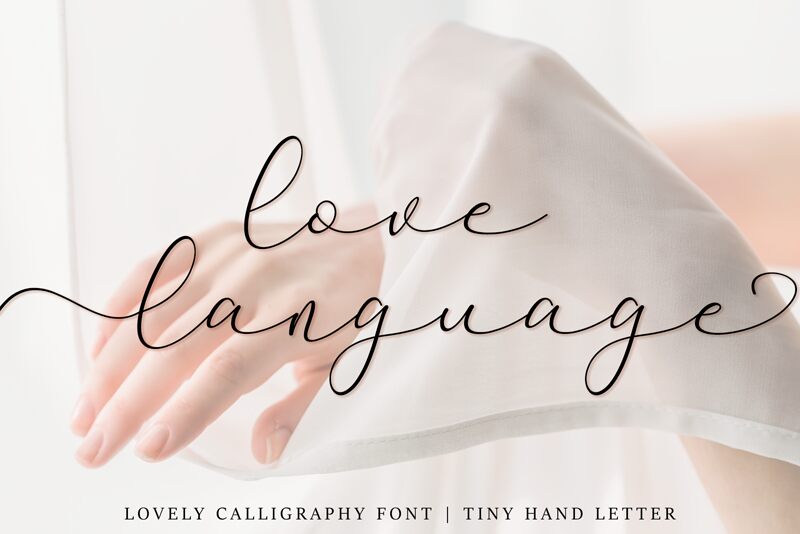
Love Language
Love Language is a beautifully crafted calligraphy font designed by Tiny Hand Letter in 2021. Its ultra-light weight and elegant curves make it perfect for adding a touch of romance to any project, whether it's wedding invitations, love letters or even branding for a high-end perfume line. With its flowing script and delicate strokes, Love Language is also ideal for artistic projects such as poetry books, greeting cards or inspirational quotes. This font will definitely add an extra layer of sophistication and class to your designs. Give your projects the Love Language touch they deserve!